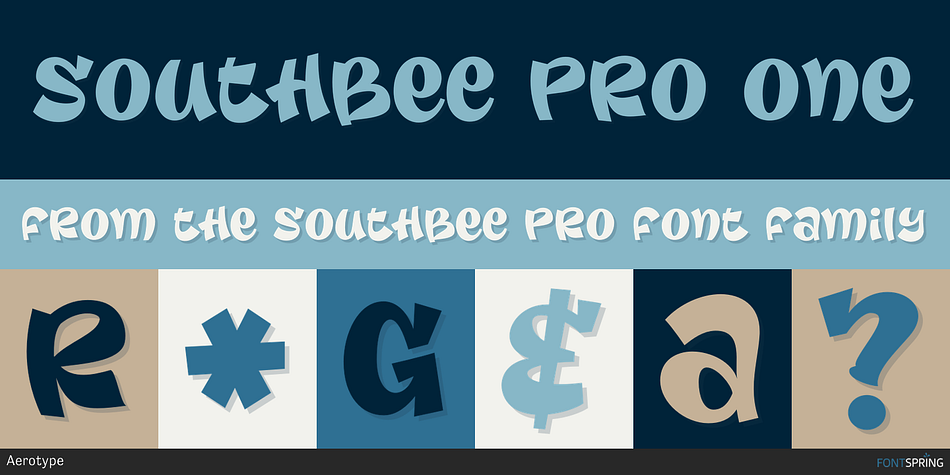
SOUTHBEE PRO ONE
Southbee Pro is a display and kids font family. This typeface has two styles and was published by Aerotype .
The OpenType versions of Southbee One Pro and Southbee Two Pro have several alternate characters in the lower case register and contextual alternate ligatures, as well as support for Eastern European Latin and Baltic languages.